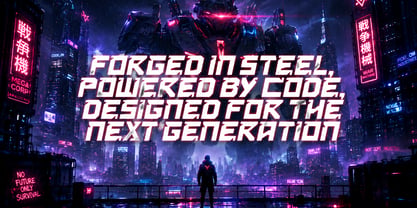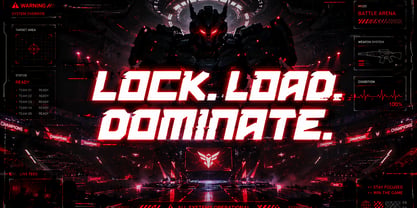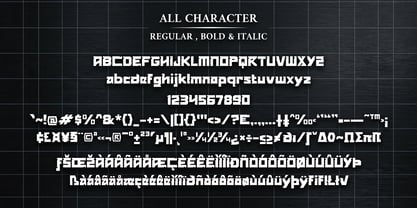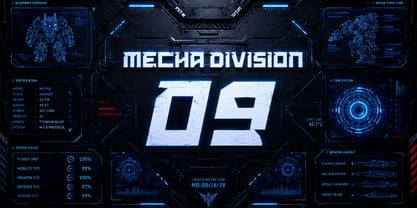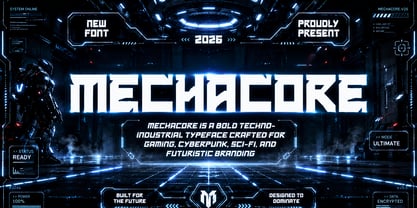
Mecha Core
by Mei Suseno
The Mecha Core Font Family was designed by Wahyu Eka Prasetya, Mei Suseno and published by Mei Suseno. Mecha Core contains 4 styles and family package options. More about this family
Mecha Core is a bold futuristic display font inspired by cyberpunk aesthetics, industrial machinery, and next-generation gaming culture. Designed with sharp geometric edges and powerful mechanical forms, this typeface delivers a strong sci-fi atmosphere perfect for esports branding, futuristic posters, game titles, technology projects, movie headers, and digital interfaces.
Its aggressive techno style combines modern industrial energy with robotic precision, making every headline look powerful, cinematic, and futuristic. Whether used for gaming logos, cyberpunk visuals, streaming graphics, or sci-fi UI concepts, Mecha Core brings a high-impact futuristic identity to your designs.
Designers: Wahyu Eka Prasetya, Mei Suseno
Foundry: Mei Suseno